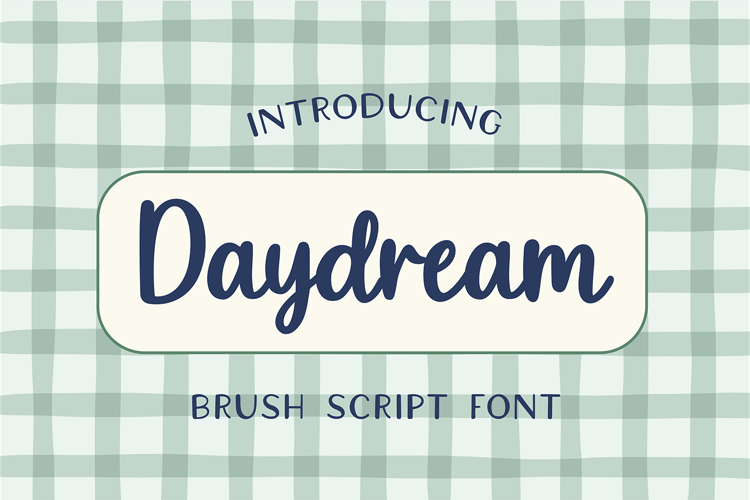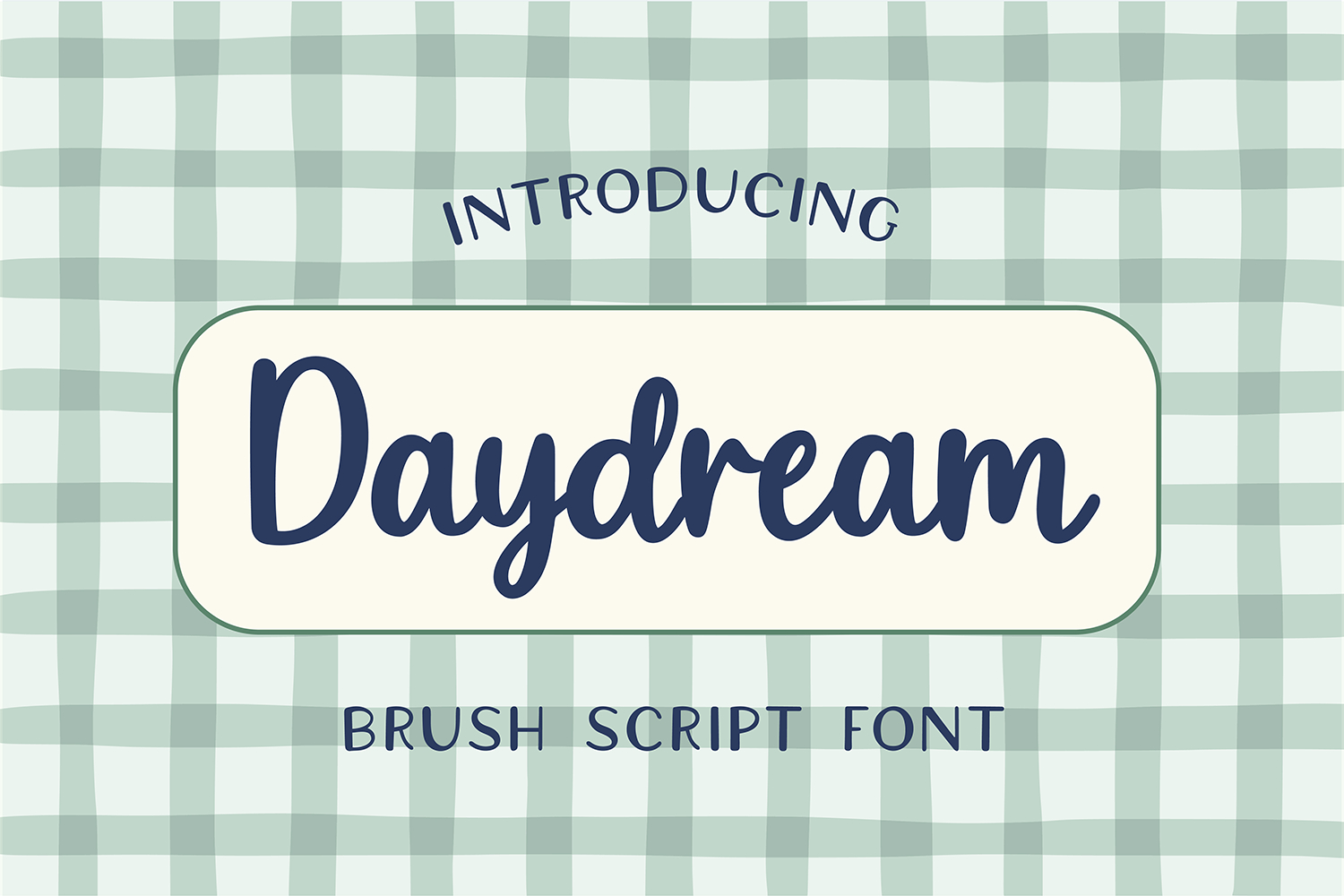
DAYDREAM Cursive Brush Handwriting Font
This bold brush script font is perfect for Cricut, Canva, Procreate, and all your creative projects. Designed with thick, hand-painted strokes and a natural brush texture, it’s ideal for logos, t-shirts, social media graphics, branding, stickers, and more.
The lettering has a confident, vintage feel with smooth curves and bold lines that stand out beautifully on any design. Whether you're creating eye-catching merch, aesthetic Instagram posts, or custom vinyl designs, this font gives your work a strong, handwritten look that feels both trendy and timeless.
This font is a go-to if you want a bold, brush-style script that feels expressive, vintage, and easy to use across all platforms.